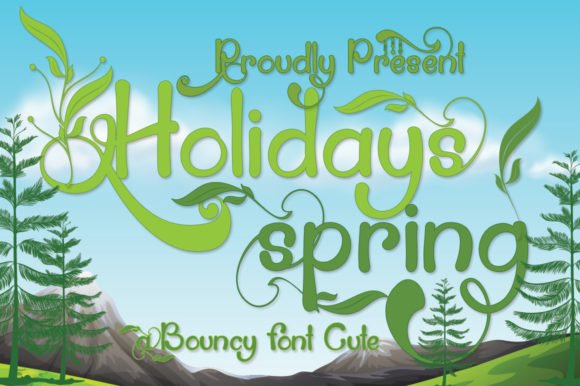
For designers, finding the right font can make all the difference between a good design and a great one. That’s where the Holidays Spring Font comes in – a gorgeous, versatile script font that’s sure to add a touch of whimsy and authenticity to any project. With its beautiful swashes and ligatures, this font is perfect for designers looking to add a little extra magic to their work.
Whether you’re working on a branding project, a marketing campaign, or simply a creative passion project, the Holidays Spring Font is an invaluable addition to your design toolkit. Its unique charm and personality make it a standout choice for anyone looking to add a little extra flair to their designs.
Holidays Spring Font Key Features
- Unique Characteristics: This font features a spring-inspired design with intricate details, floral elements, and playful flourishes, adding a touch of whimsy and elegance to any design project.
Holidays Spring Font Review
I recently had the chance to work with the Holidays Spring Font, and I have to say, it’s a mixed bag for me. ✨ One thing that really works well is the playful, whimsical feel of the font. It’s perfect for projects that need a touch of springtime magic. The font is also incredibly versatile, and I found it to work well in a variety of contexts, from invitations to branding materials.
Another strength of the Holidays Spring Font is its large character set, which includes a wide range of special characters and symbols. This makes it easy to get creative with your designs and add some extra flair. ✨ I also appreciate the fact that the font is fully scalable, so it looks great in both small and large sizes.
- ⚠️ The font can be a bit overused, and I’ve seen it popping up in a lot of designs lately. This might make it harder to stand out in a crowded market.
- ⚠️ The font also has some issues with kerning, particularly at smaller sizes. This can make the text look a bit messy or uneven.
Overall, I’d say the Holidays Spring Font is a solid choice for designers looking to add some springtime charm to their projects. While it’s not without its limitations, I think it’s a great option for the right kind of design. Just be aware of the potential pitfalls and use your best judgment when working with this font.
To get the most out of the Holidays Spring Font, use it for:
- Spring-themed designs, such as Easter or Mother’s Day cards.
- Wedding invitations or other celebratory designs.
- Adding a touch of whimsy to your branding or marketing materials.
Remember to experiment with different font sizes, colors, and combinations to create unique and eye-catching designs.
Alternatives to Holidays Spring Font
Ostrich Sans is a modern sans-serif font that exudes a playful and carefree vibe, making it perfect for creating fun and lively designs. It has a more rounded feel compared to Holidays Spring Font, which is ideal for designs that require a softer touch. When to use: Brochures, social media graphics, and advertisements that need a youthful feel.
Great Vibes is a beautiful script font that conveys a sense of elegance and sophistication. It has a more refined feel compared to Holidays Spring Font, making it suitable for high-end designs that require a touch of luxury. When to use: Wedding invitations, luxury brand materials, and upscale advertising campaigns.